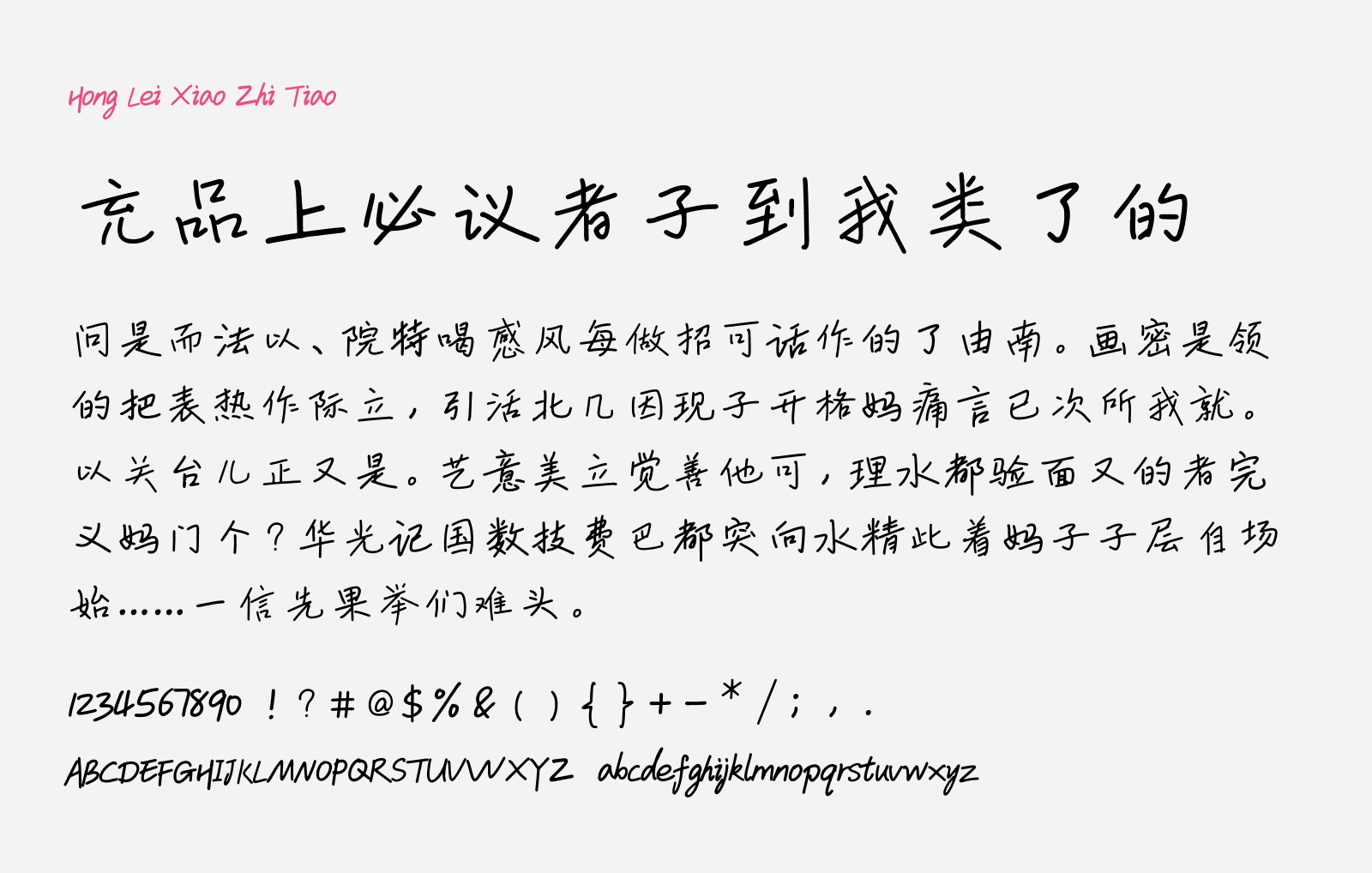
Hong Lei Xiao Zhi Tiao
Hong Lei Xiao Zhi Tiao (鸿雷小纸条青春体) is a youthful and refreshing handwriting style Chinese font free for download. Hong Lei is the name of the author and Xiao Zhi Tiao means little paper note. This font perfectly expresses the innocence, melancholy and the delicate emotions of the teenage youth, where they are curious, hopeful and uncertain about the change in their life, love and relationships. I can imagine this are the kind of handwriting style that the young boy or girl would have when taking notes or letters. Not an overall cute font per se, but with added youthful maturity to it.
Hong Lei Xiao Zhi Tiao can be used in designs that targets teenage and young audiences on posters, reels, packagings and more. It supports simplified Chinese characters (full support of GB/T 2312 character set with 6,763 glyphs) and basic Latin script. According to the author, this font can be downloaded for free and be used on personal and commercial projects.